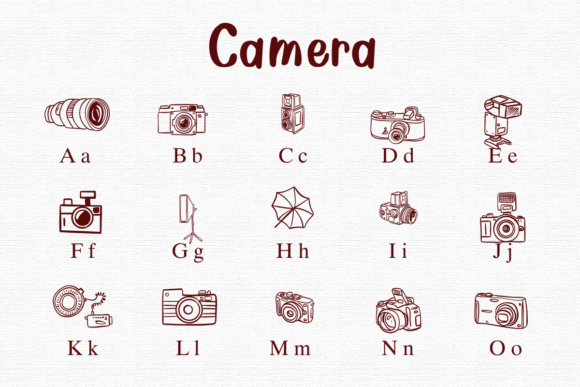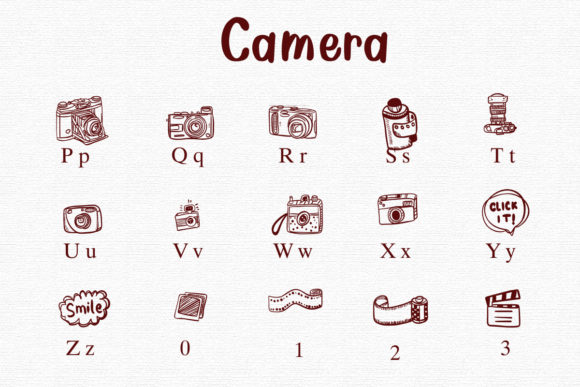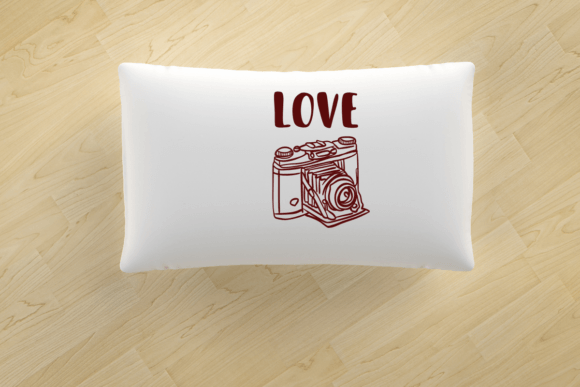
Camera Font
“Camera” is a dingbat font filled with various photo cameras. Each letter is replaced by a different camera design, making it fun and creative for adding a photographic touch to your projects. Whether you’re creating posters, invitations, or anything else, this font adds a playful element with its camera-themed characters.